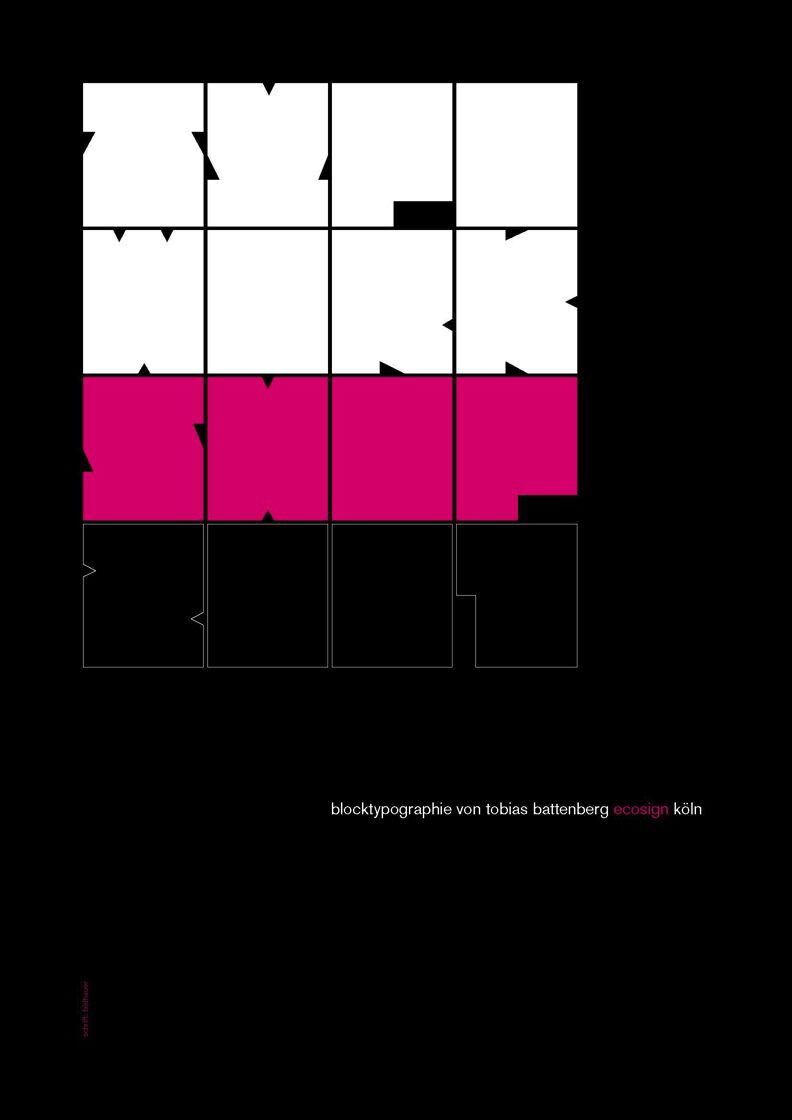
Bildhauer Kant by Tobias Battenberg is a free angular display font with severe geometric construction. Its tall, rigid forms combine hairline strokes with broad wedges and sharply cut points. The result feels stark and architectural.
Its sculpted silhouette suits experimental posters and art publishing, where lettering can act almost like abstract geometry. Fashion branding and music graphics can also use its contrast between delicate lines and solid facets. These recurring chisel-like shapes make the letters part of the image rather than neutral text.